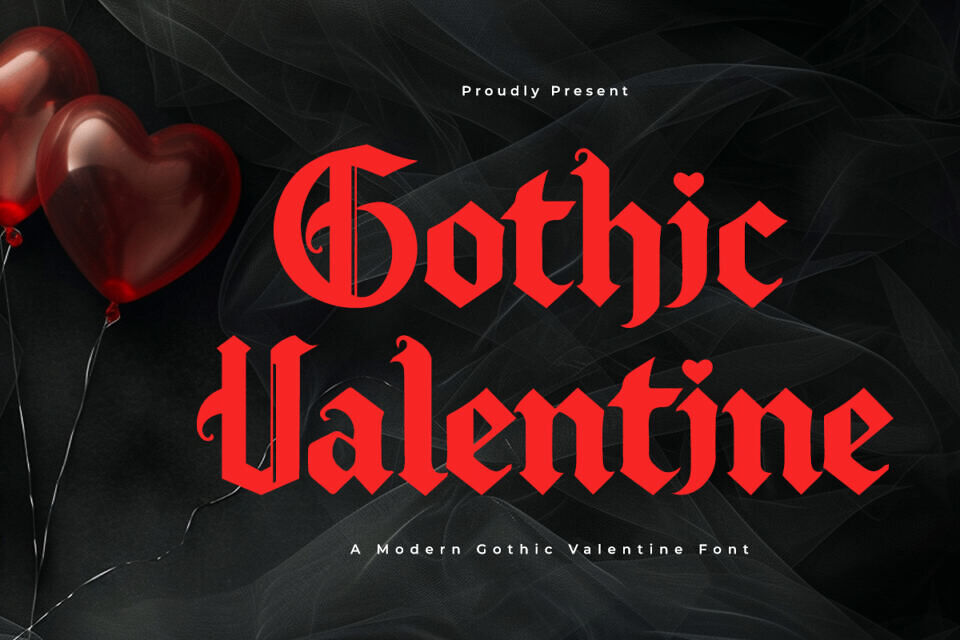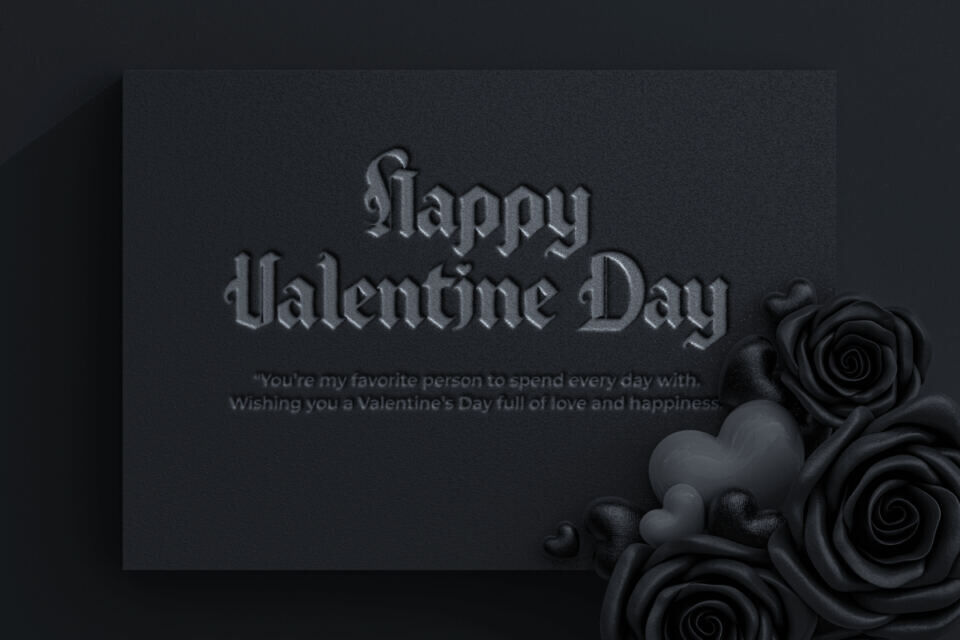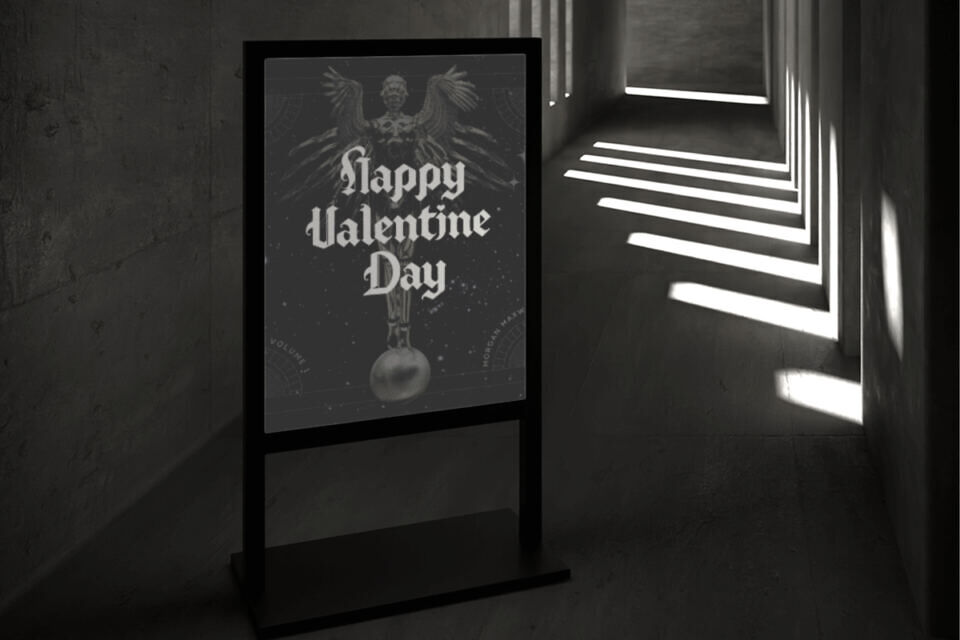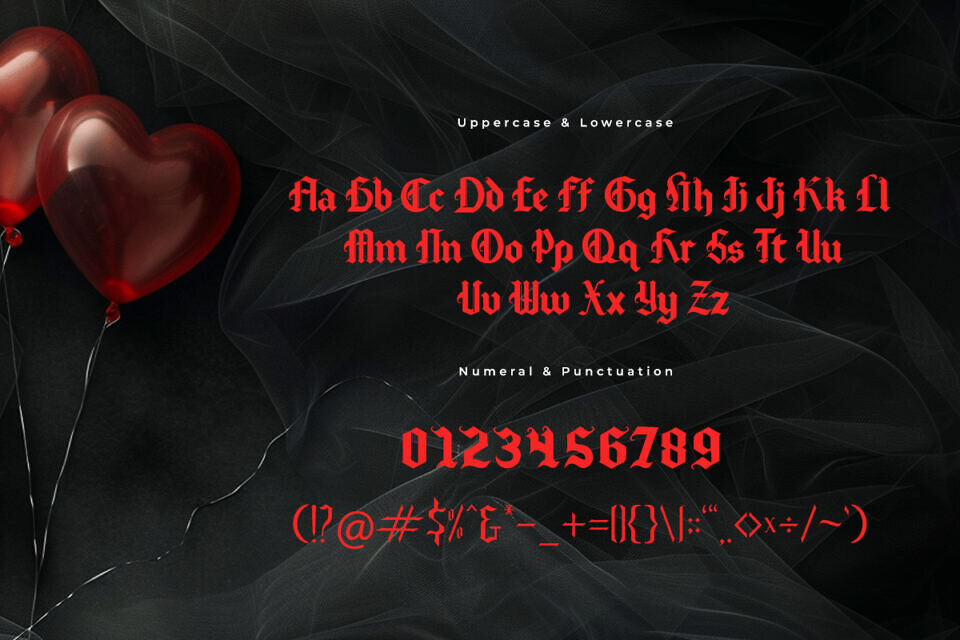
Gothic Valentine is a modern decorative font that blends elegant gothic style with cute romantic touches, featuring heart-shaped elements in the letters.
It’s ideal for Valentine’s Day designs like invitations, greeting cards, souvenirs, decorations, and merchandise. Versatile for both digital and print use, it adds a simple yet charming appeal to projects and works well with creative themes and atmospheres.